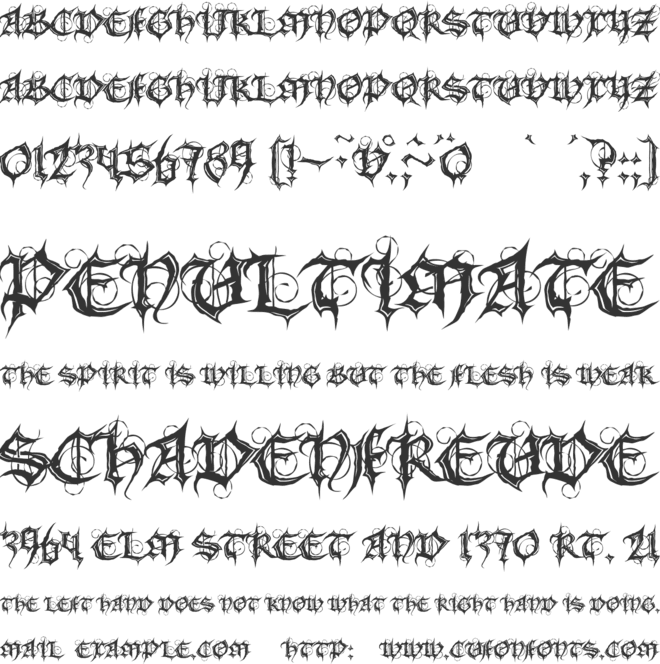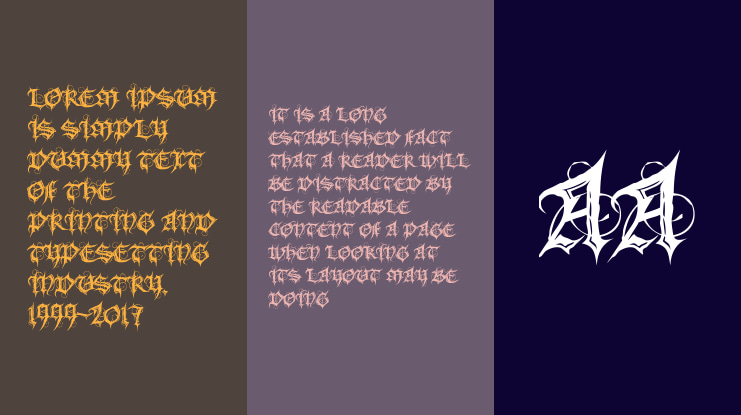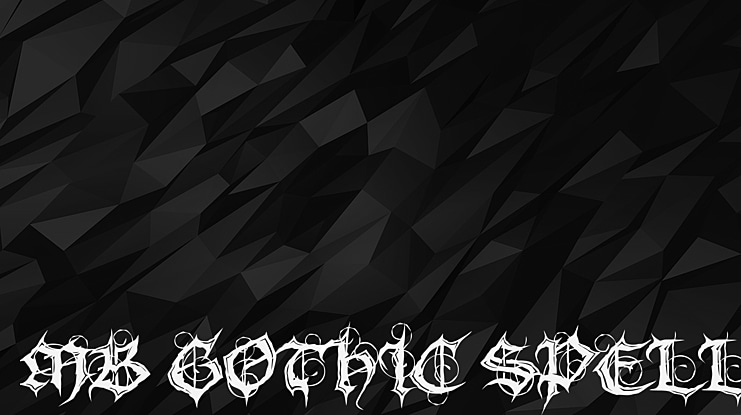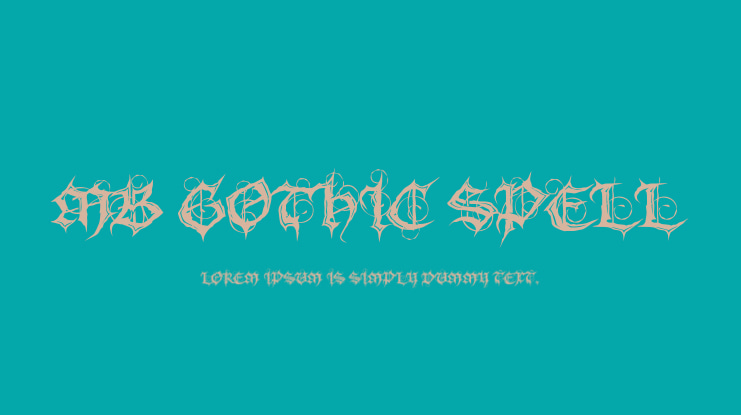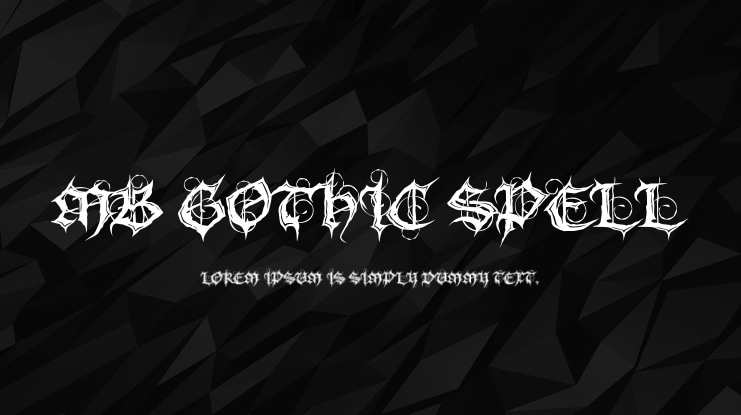
MB Gothic Spell Font
ModBlackmoon
TTF Font, based on traditional gothic capital letter shapes with some metal infuences and extra ornaments [Hand-drawing + Illustrator].
Incl. English letters and Numbers, some most common signs, some letters from nordic languages.